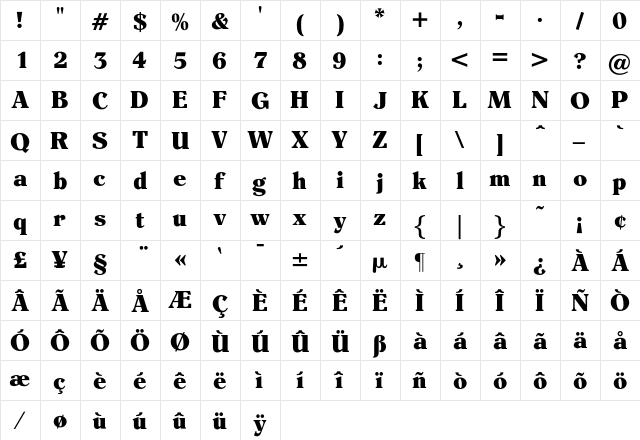
Hohenfels Regular
Design Context for Hohenfels Typeface
Hohenfels is a composed and adaptable typeface that performs quietly and consistently across a wide range of design contexts.